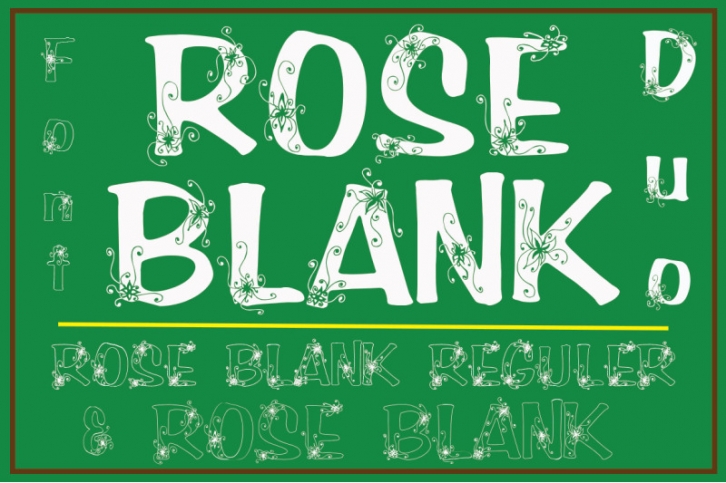
The Rose Blank is a beautiful decorative font. It includes unique letters
with decorative Flower on each letter. It has an elegant style and
includes two variations; regular and black.